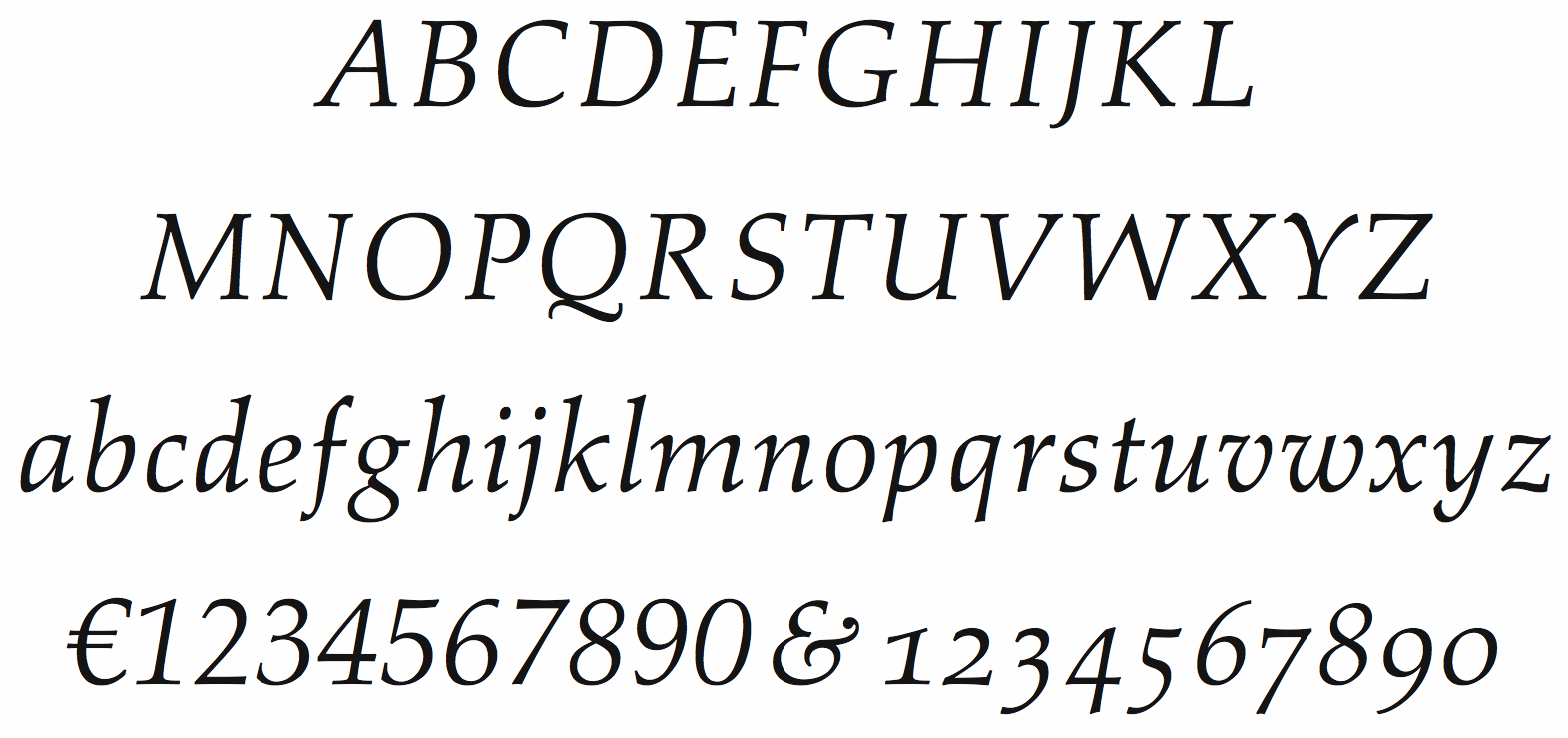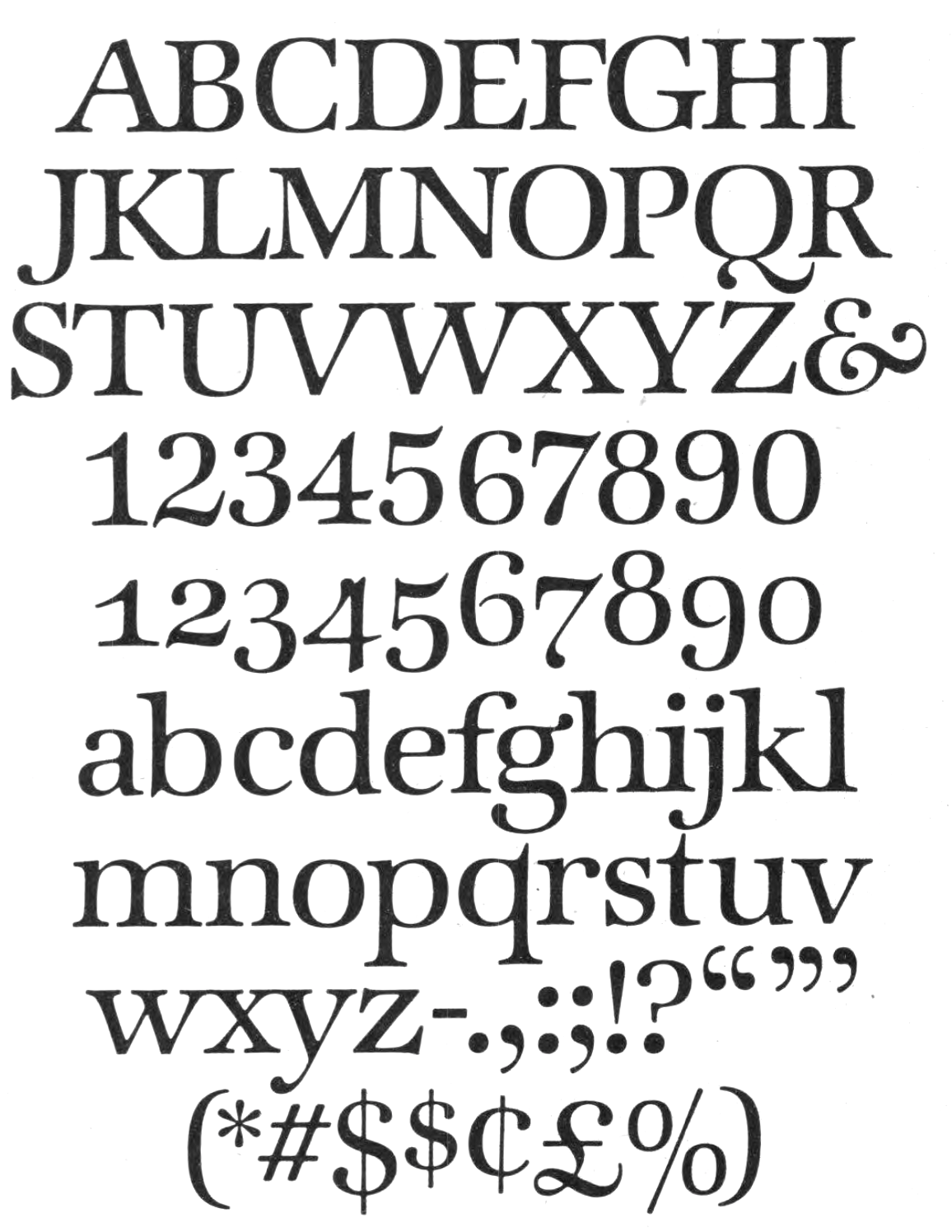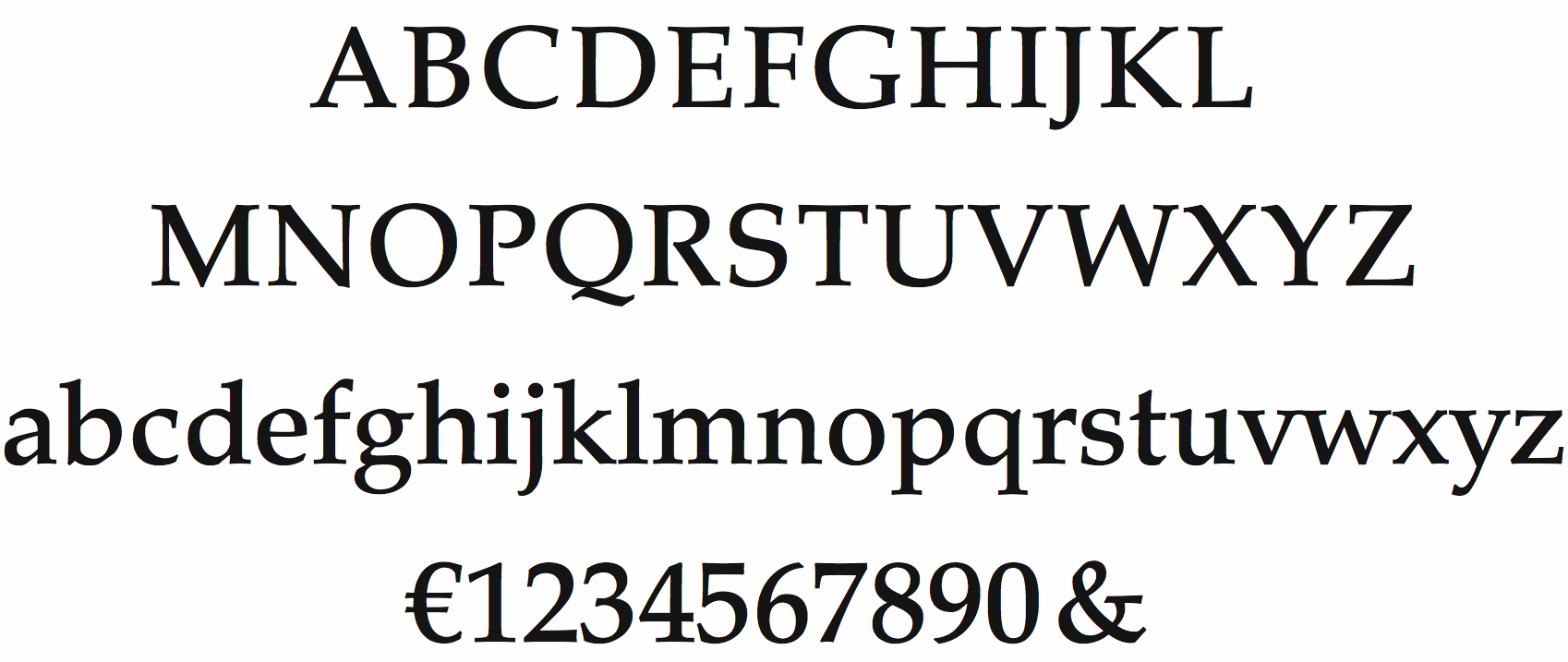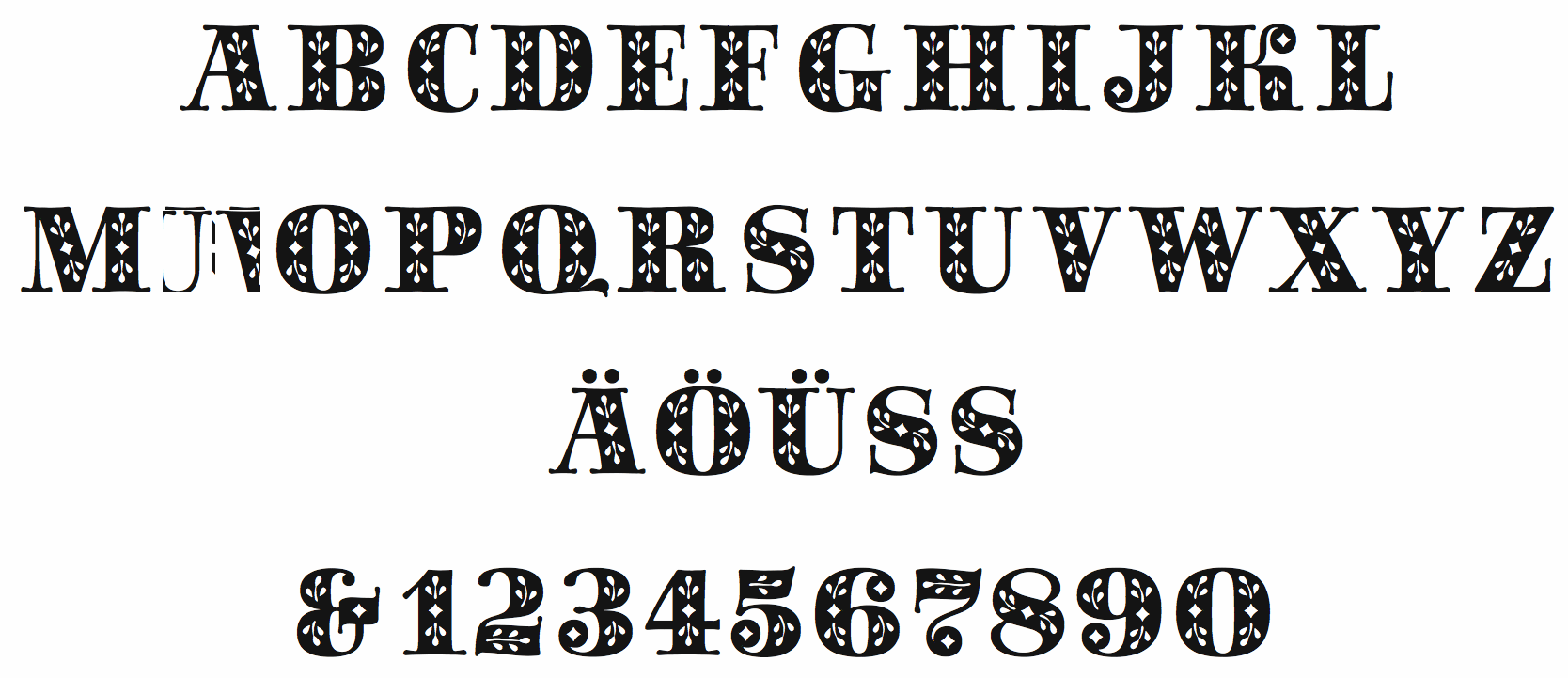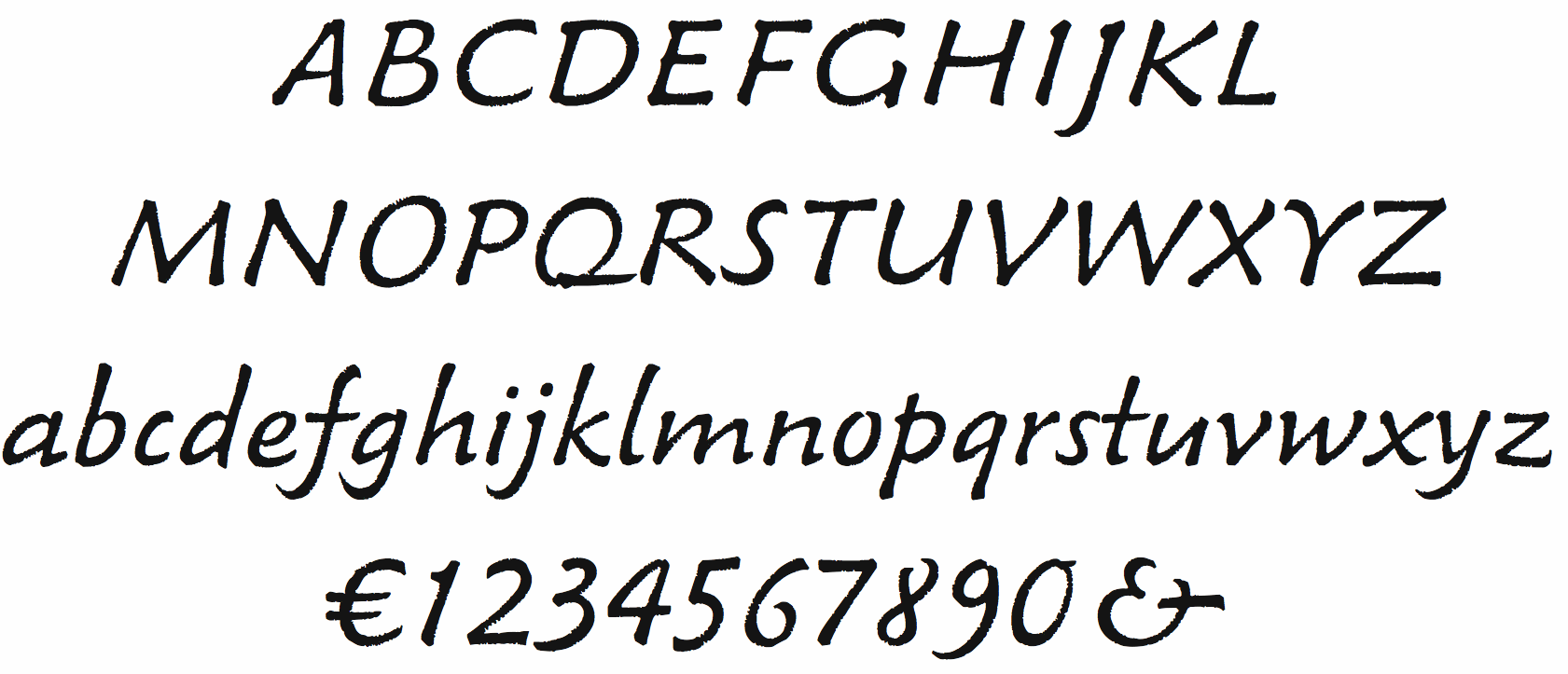
Awesome Hermann Zapf Fonts References. It has many alternative in google fonts. Stempel ag foundry, frankfurt, west germany in 1958.
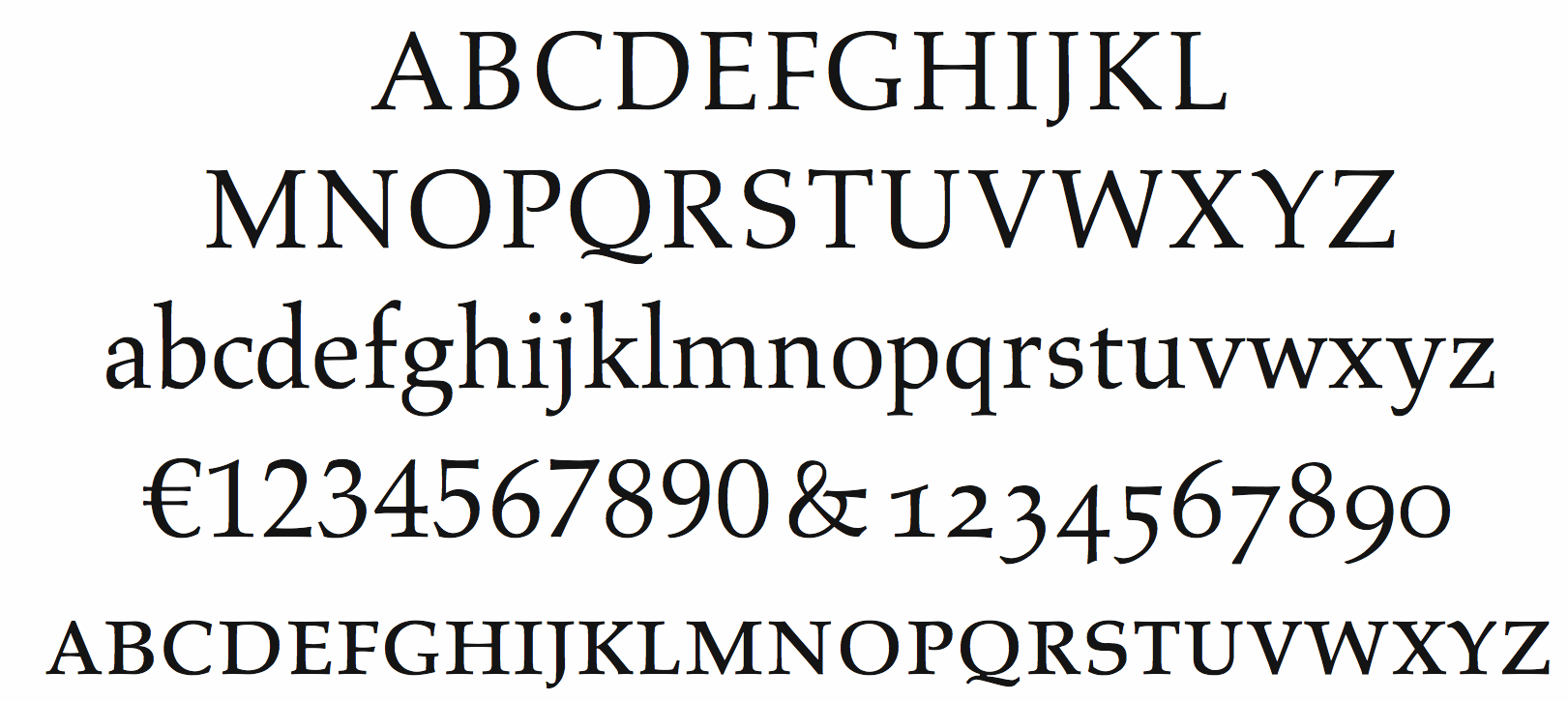
Zapf is survived by his wife, the former gudrun von hesse, who is also a renowned calligrapher and type designer and whom he married in 1951, and three. Web german designer hermann zapf created the following fonts: Antique, business, font, font family, fonts from a movies, roman, russian fonts, serif,.
Font Designer Hermann Zapf Died In 2015 At The Age Of 96 Years And Designed The Fonts Aldus, Aldus Nova, Aurelia, Palatino.
Stempel ag foundry, frankfurt, west germany in 1958. It has many alternative in google fonts. (1954), (1983), (1978), (1954), (1976), (1971), (1952), (1976), (1958), (2002), (1974), (1950), (19.
Though Classified As A Sans.
Web today's digital font technology has allowed renowned type designer hermann zapf to realise a dream he first had more than fifty years ago: His new york times obituary. Antique, business, font, font family, fonts from a movies, roman, russian fonts, serif,.
Web Hermann Zapf, One Of The Most Respected And Celebrated Typeface Designers Of The Twentieth Century Died This Week At The Age Of 96.
He Was Known For Designing Many Notable Fonts And Did Considerable Work In.
Web font designer hermann zapf died in 2015 at the age of 96 years and designed the fonts aldus, aldus nova, aurelia, palatino and other fonts. This typeface was specially designed to be used inside the computers running apple’s mac os. Web german designer hermann zapf created the following fonts:
To Create A Fully Calligraphic.